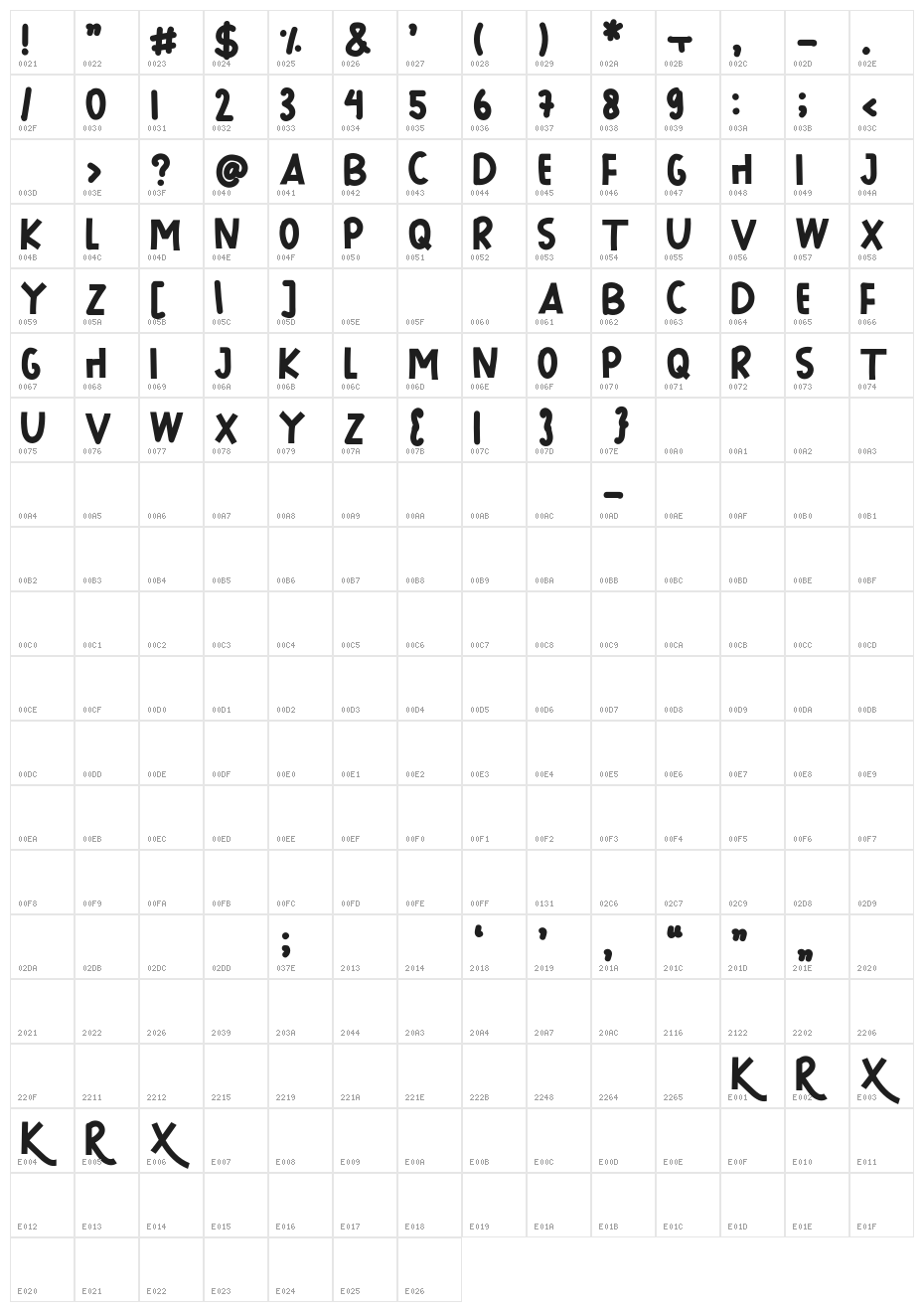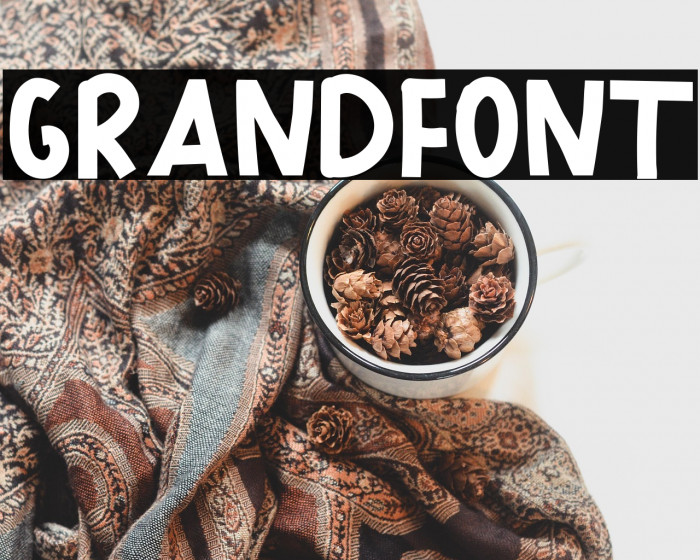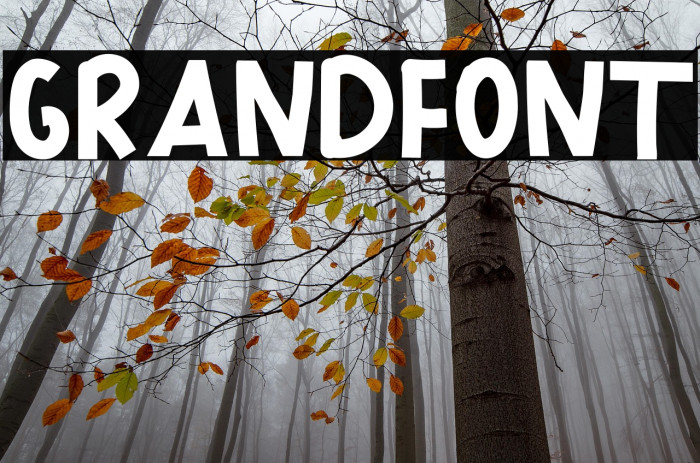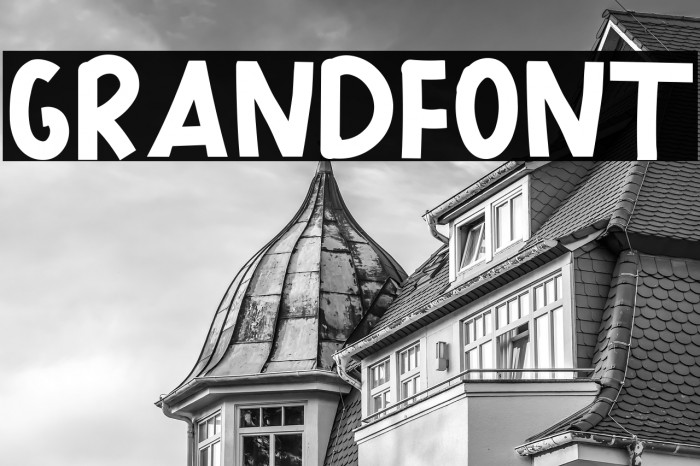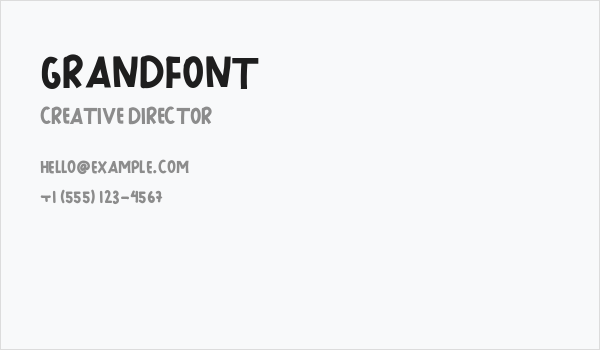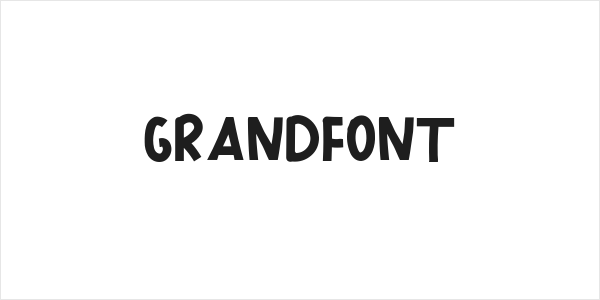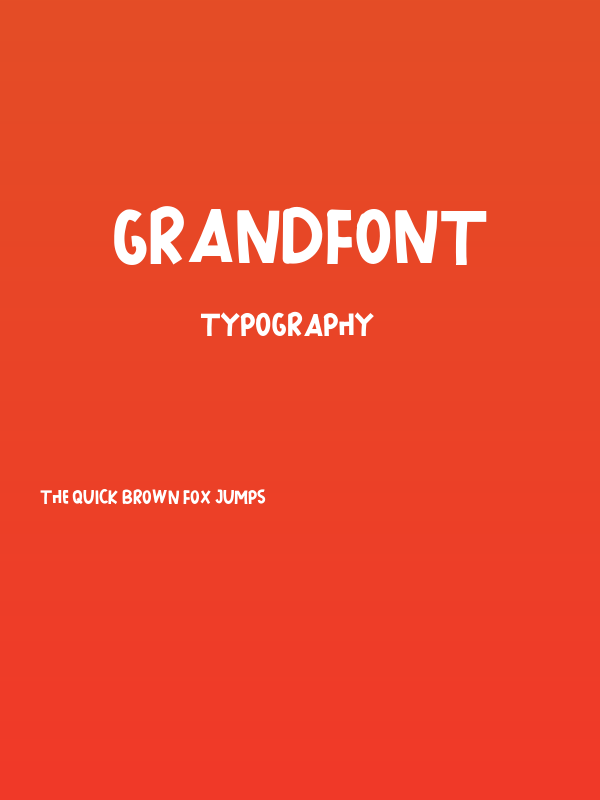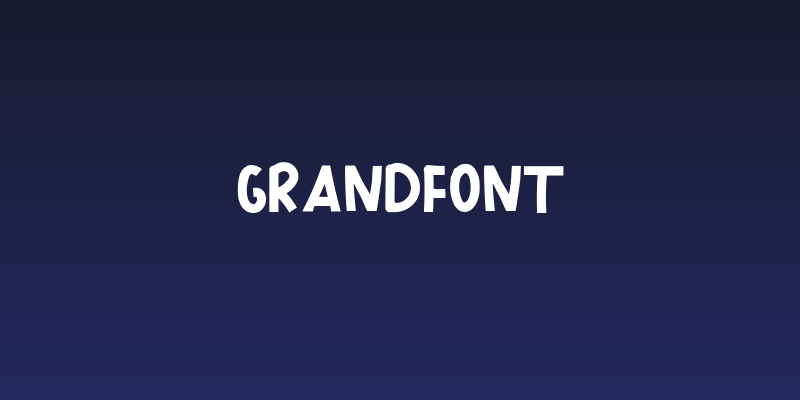
GRANDFONT Font
GRANDFONT Description
This font features bold, rounded characters with a playful and slightly irregular style, giving it a hand-drawn appearance. The uppercase letters are prominent and consistent in height, while the lowercase letters maintain a similar width, creating a cohesive look. The numbers are equally bold, with a quirky charm that matches the letters. Special characters are distinct and maintain the playful aesthetic. This font is ideal for projects that require a fun, approachable, and informal tone, making it suitable for children's books, playful branding, or casual invitations.
| Overall Style | Playful, Informal, Hand-drawn |
| Proposed Projects | Children's books, playful branding, casual invitations, posters, and social media graphics. |